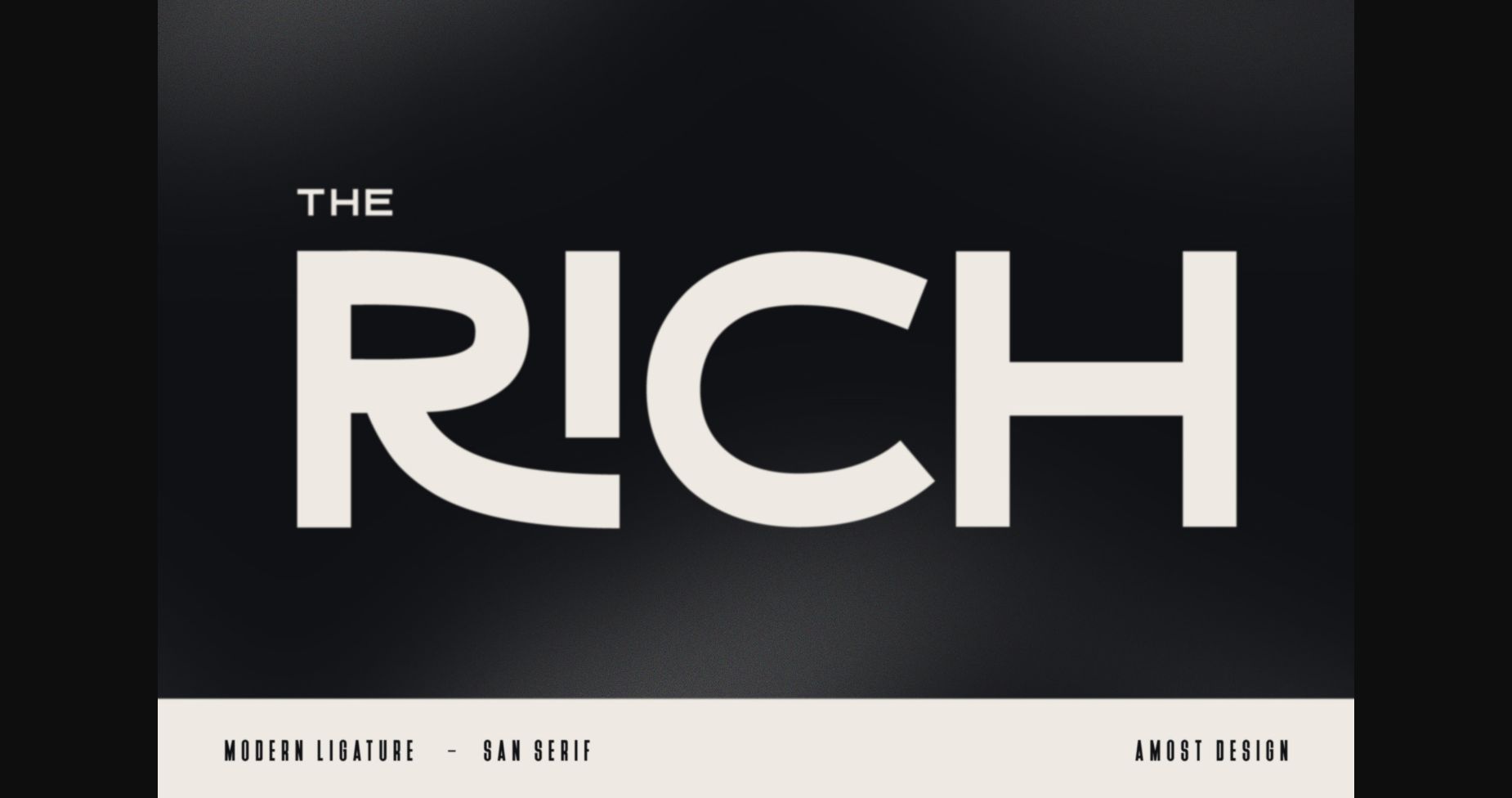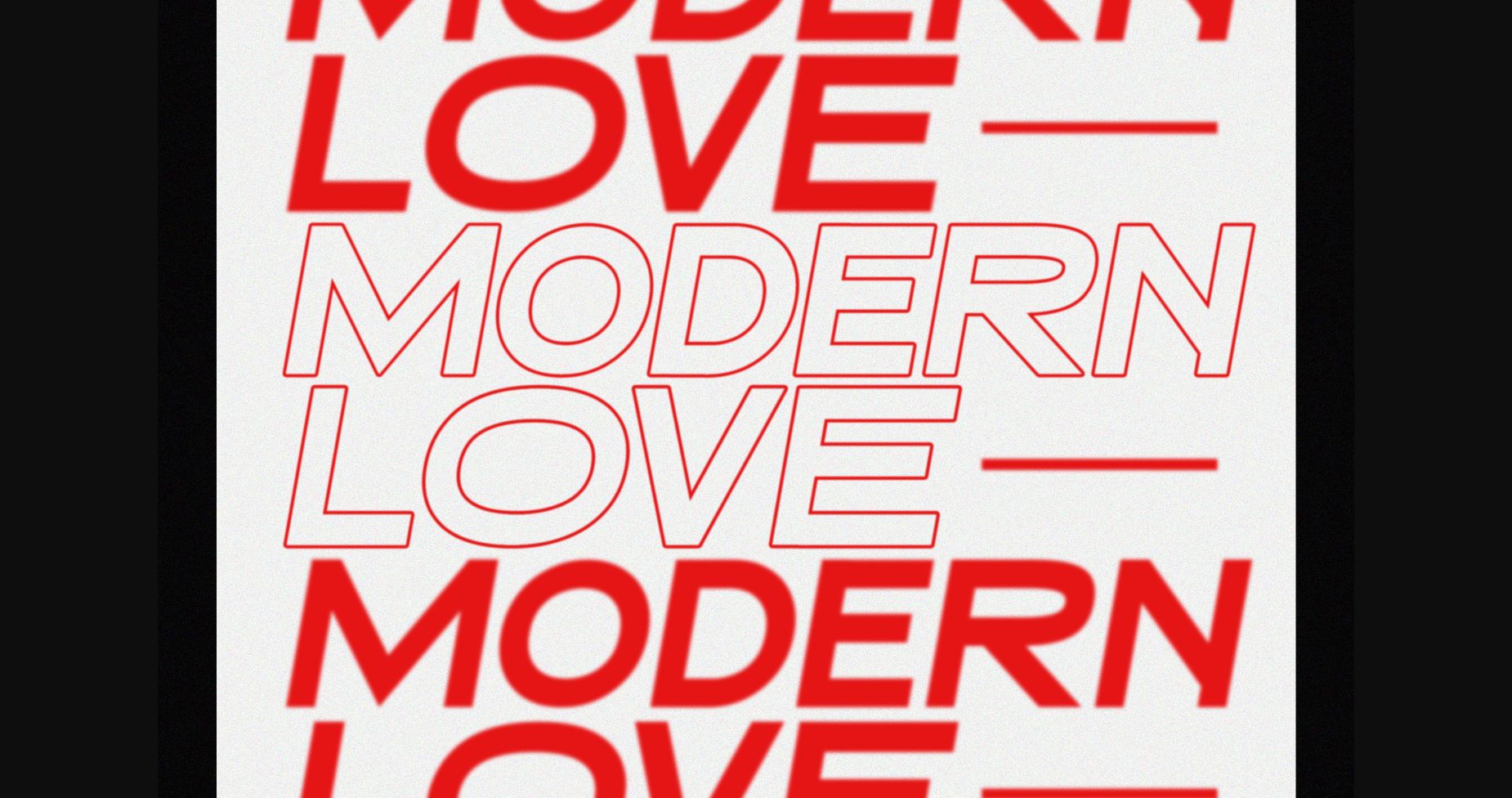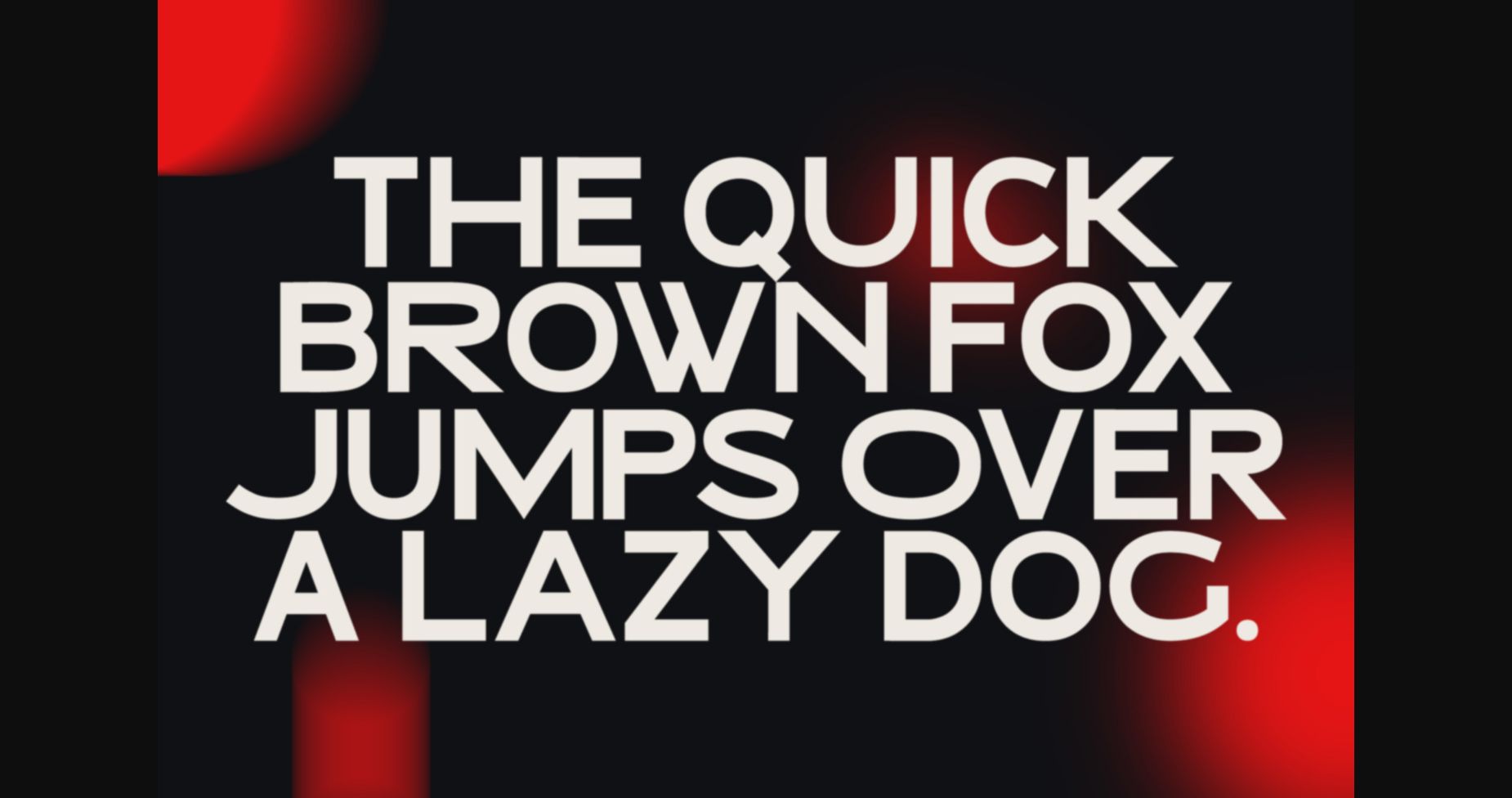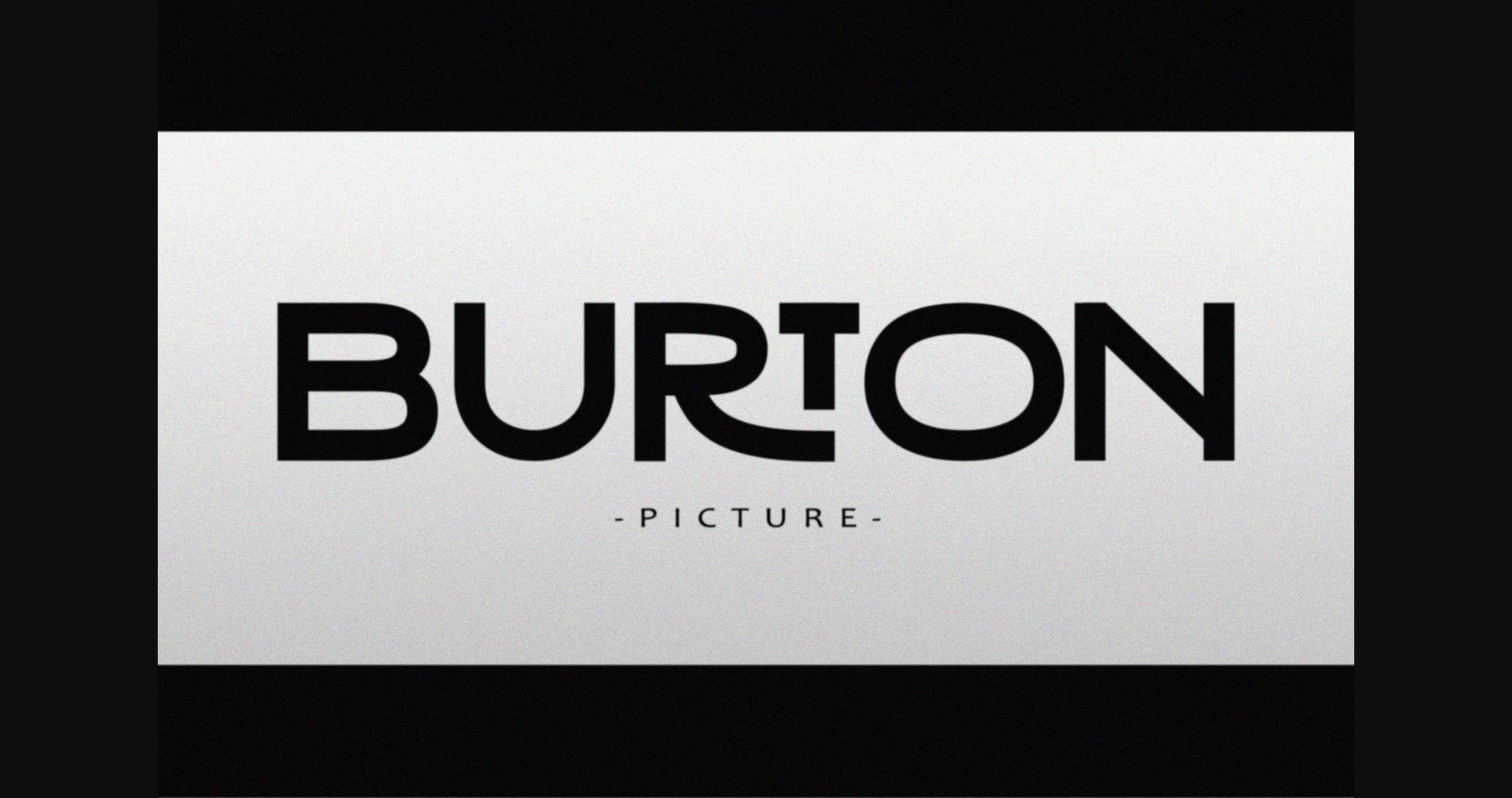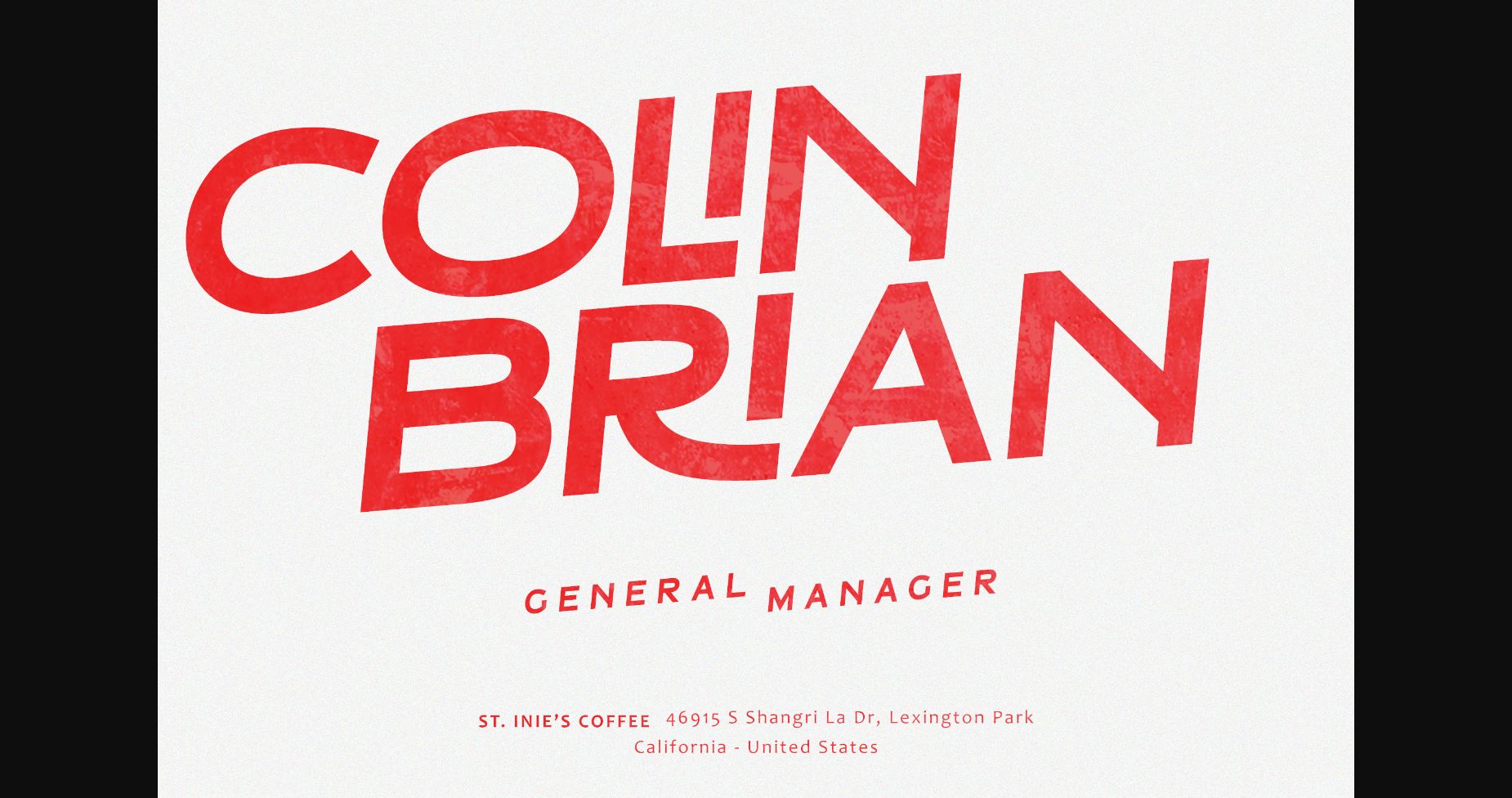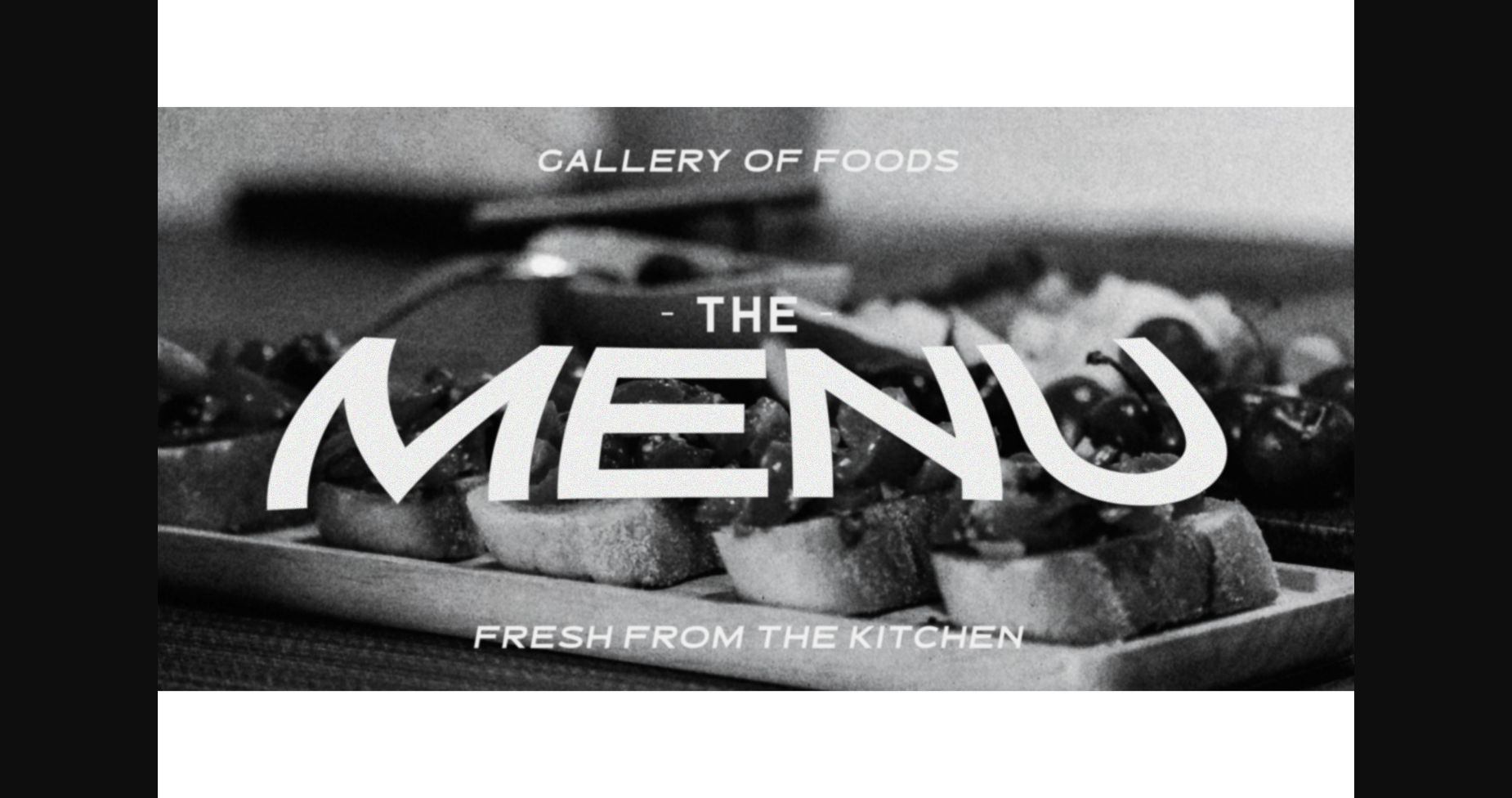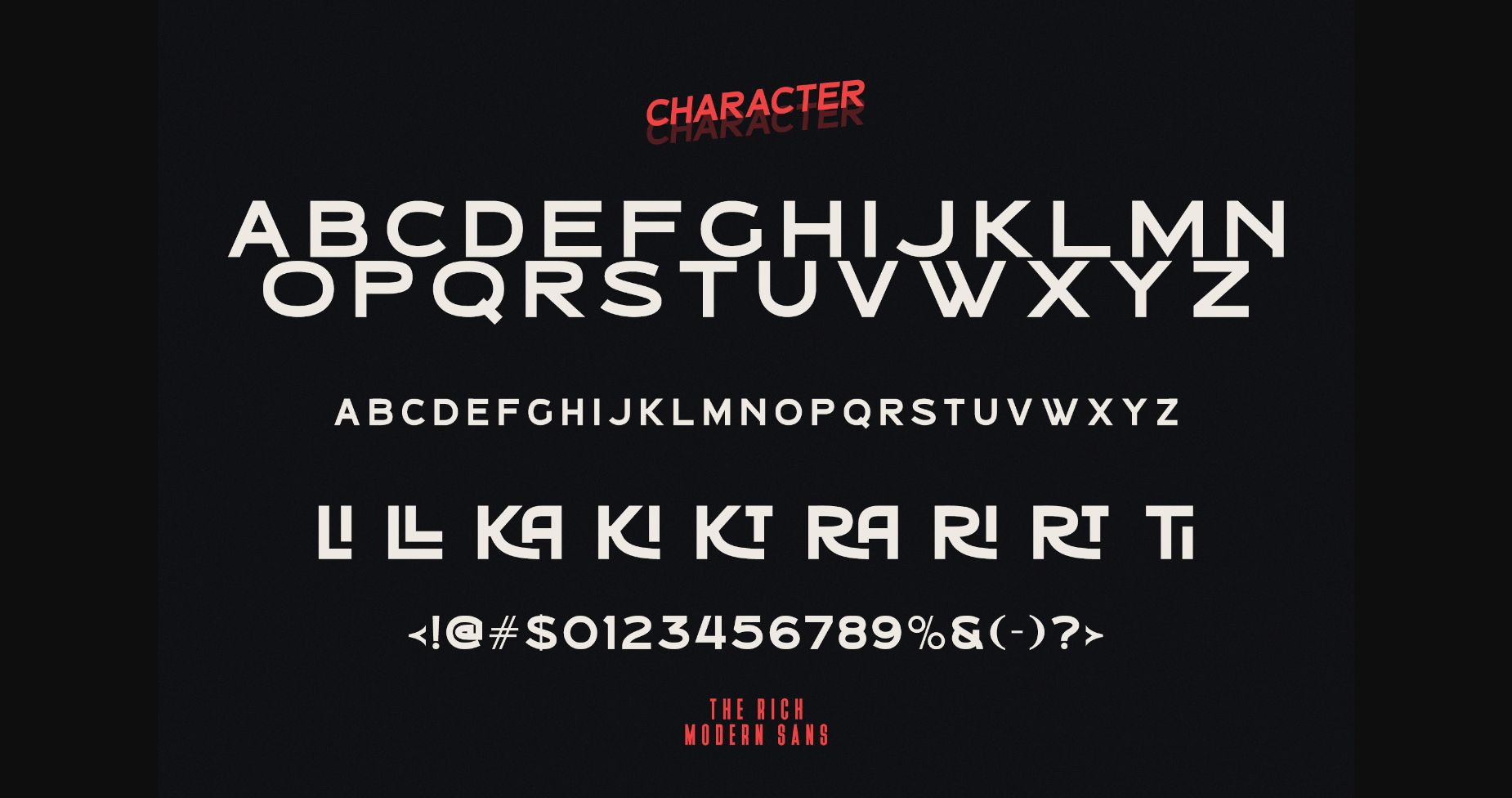
HomeSans Serif FontsThe Rich Font Sans Serif Fonts The Rich Font FacebookTwitterPinterestWhatsApp 1 of 9 ... The Rich Font Poster 2... The Rich Font Poster 3... The Rich Font Poster 4... The Rich Font Poster 5... The Rich Font Poster 6... The Rich Font Poster 7... The Rich Font Poster 8... The Rich Font Poster 9... About The Rich Font The RIch is an incredibly unique sans-serif font. Masterfully designed to become a true favorite, this font has the potential to bring each of your creative ideas to the highest level! DOWNLOAD NOW People also explored Night Santaclaus Font Patricks Reality Sunday Light Font Homegarden Duo Font Frankenstein Font Stay Fabulous Font Cotrila Font Xinden Font Boheme Floral Font 295 0 TagsThe Rich Font Previous articleNext Technology FontNext articleShmocks Font LEAVE A REPLY Cancel reply Comment: Please enter your comment! Name:* Please enter your name here Email:* You have entered an incorrect email address! Please enter your email address here Website: Save my name, email, and website in this browser for the next time I comment. Personal Use Free Creativo Personal Use Free Read more about this font Cheque Personal Use Free Read more about this font Lost Treasure Personal Use Free Read more about this font Term Free Personal Use Free Read more about this font BLOG Free vs Paid Fonts: Why Investing in Premium Fonts Is Worth It Free vs Paid Fonts: Why Premium Fonts Are Worth It in 2025 The debate of free vs paid fonts continues in the design world. While... Exploring Font Trends Free Fonts Risk: Why Free Fonts Can Be Dangerous for Designers Using Fonts in Digital Marketing: Tips to Strengthen Your Brand Identity